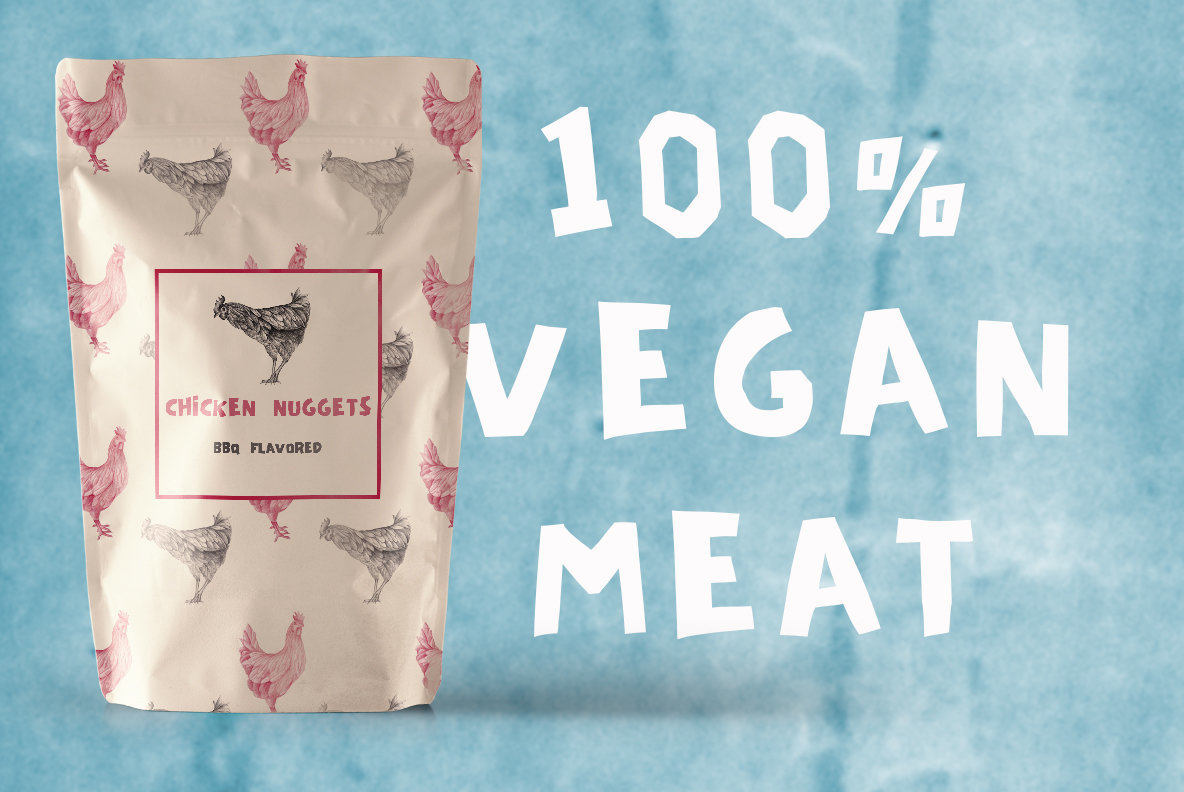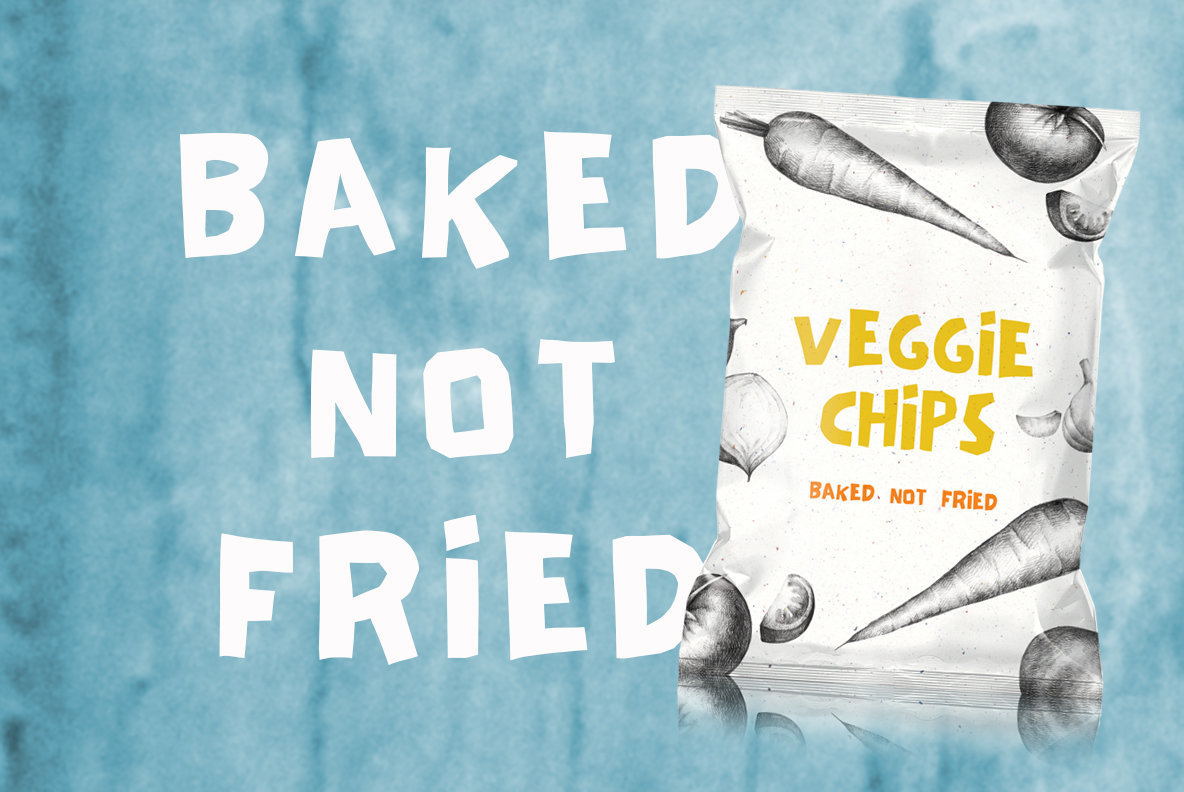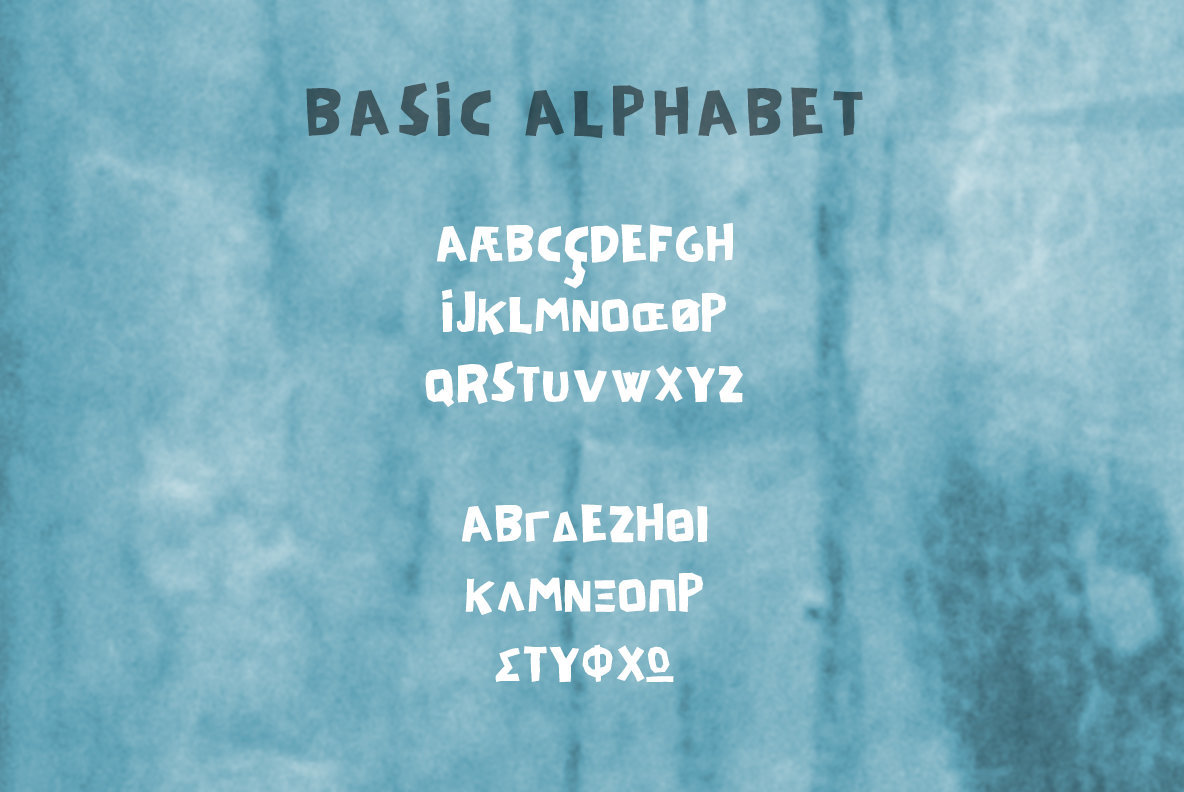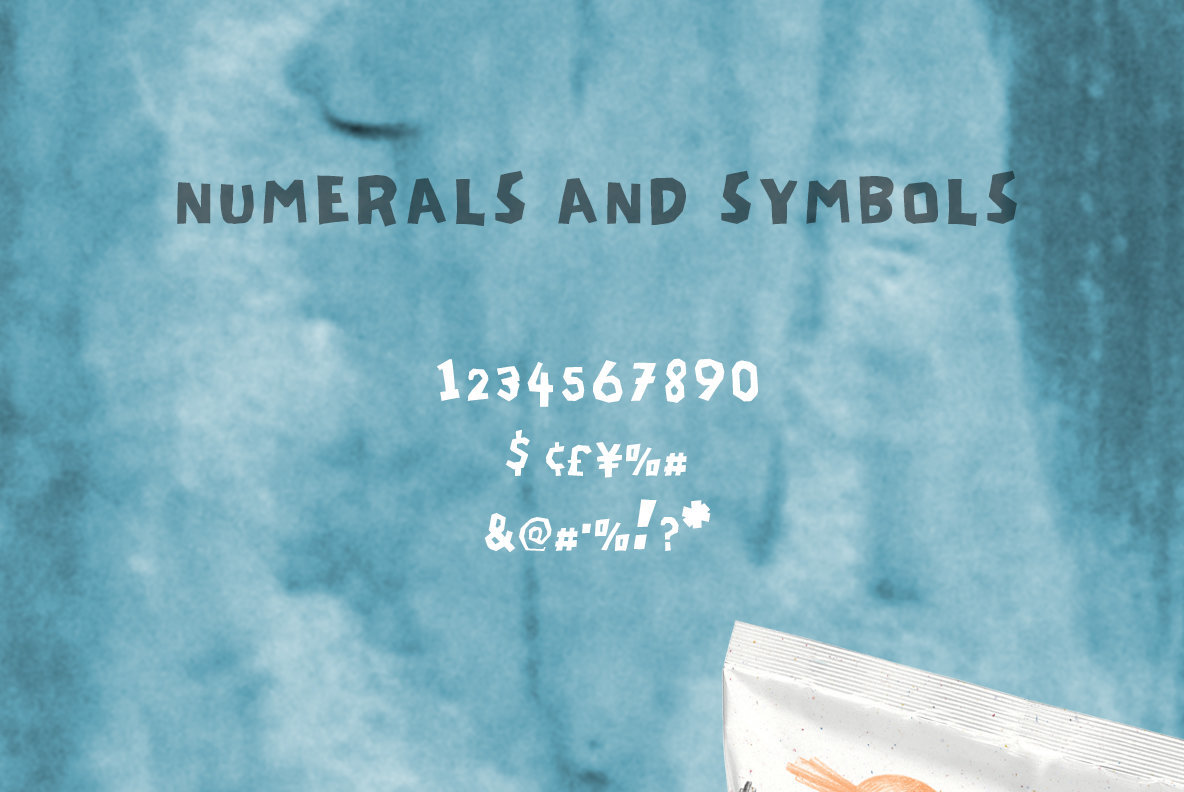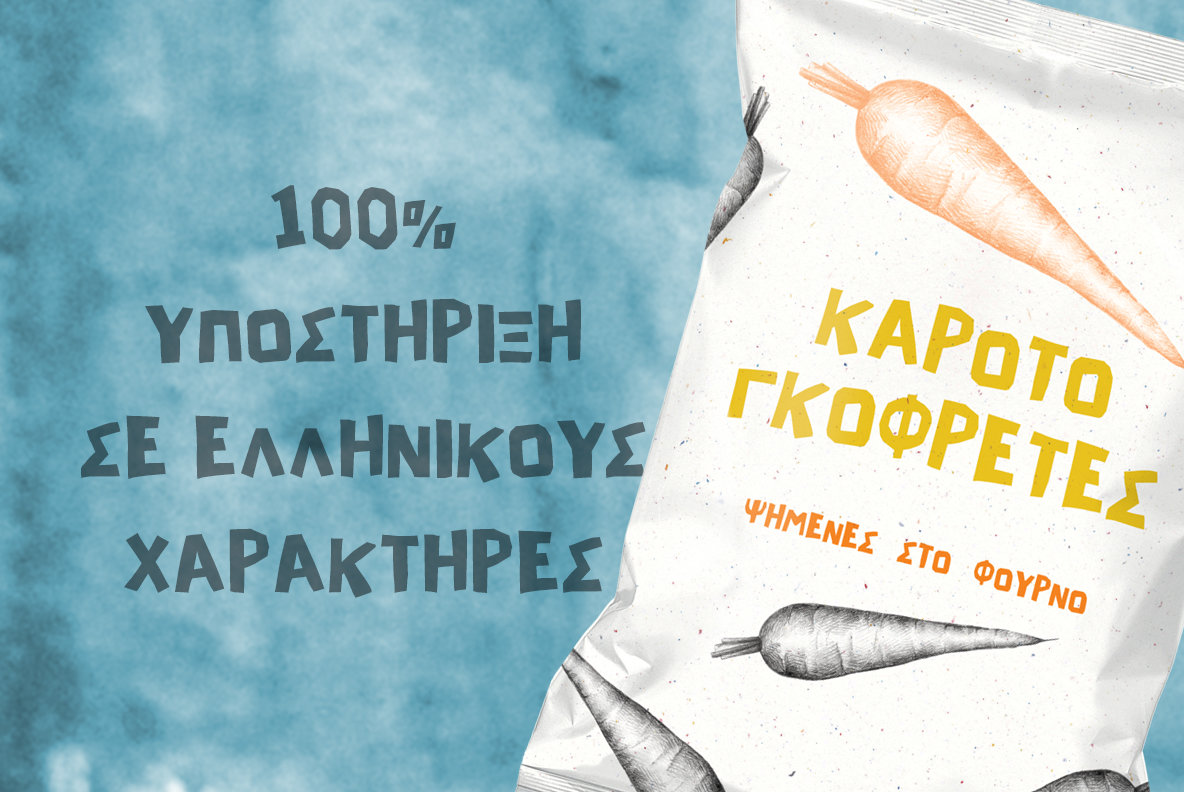
Pagkaki Font
NF PAGKAKI Regular
Pagkaki is a display font that contains latin and greek language support. The handcrafted style of Pagkaki makes this font ideal for packaging, logotypes and bold graphic design statements.